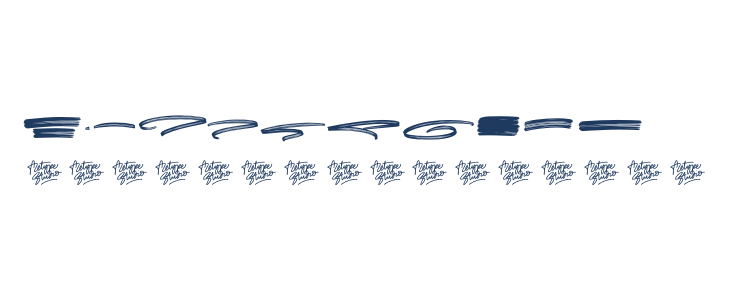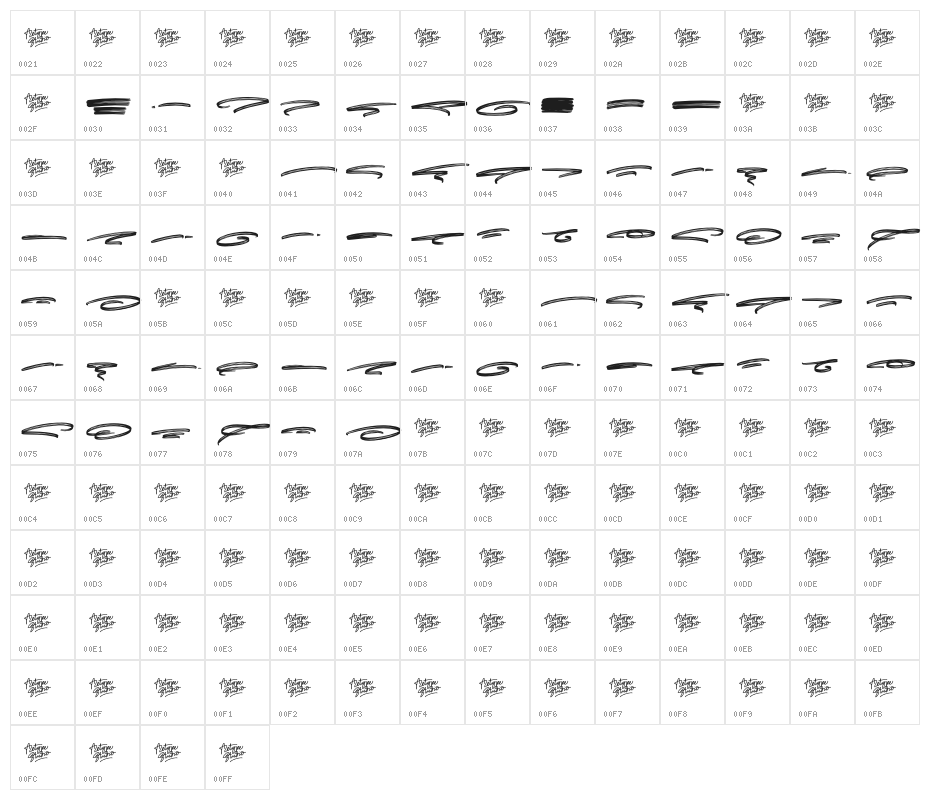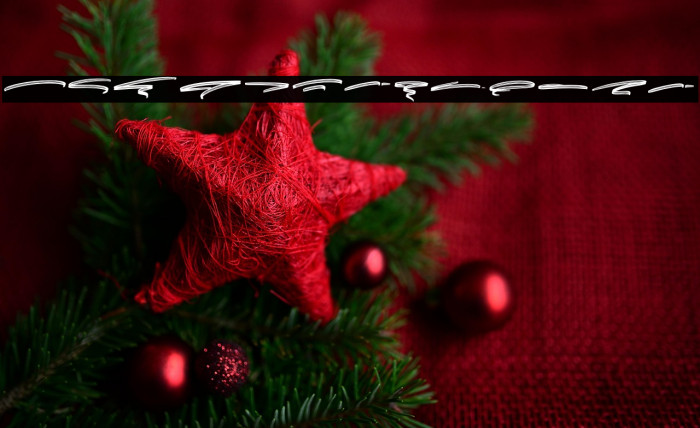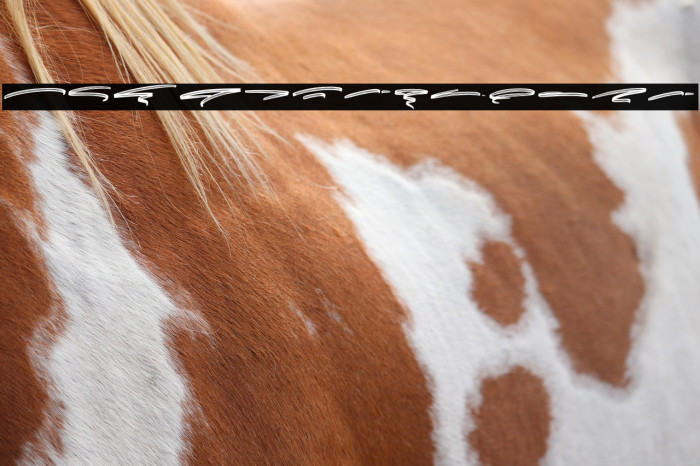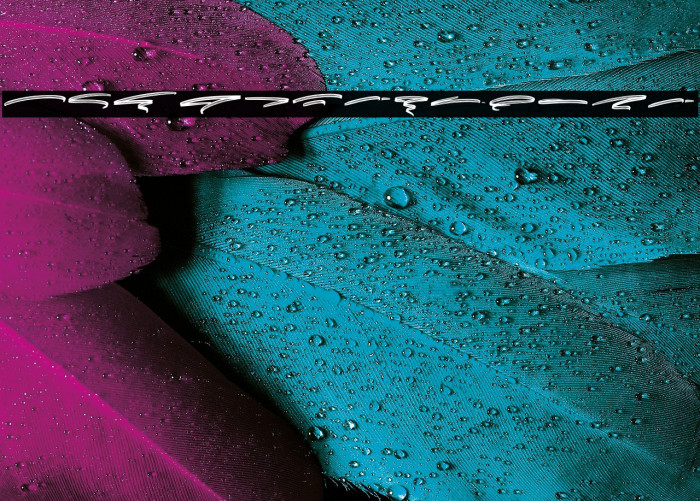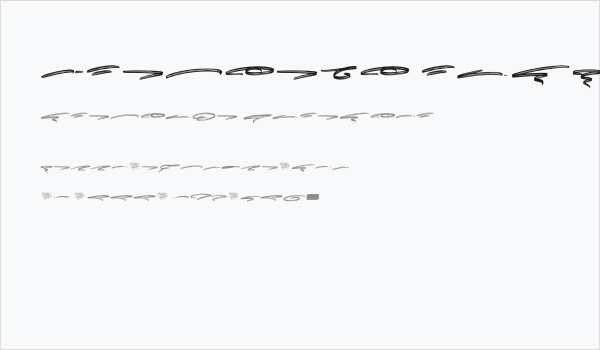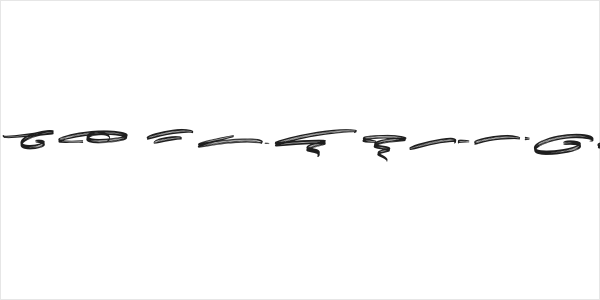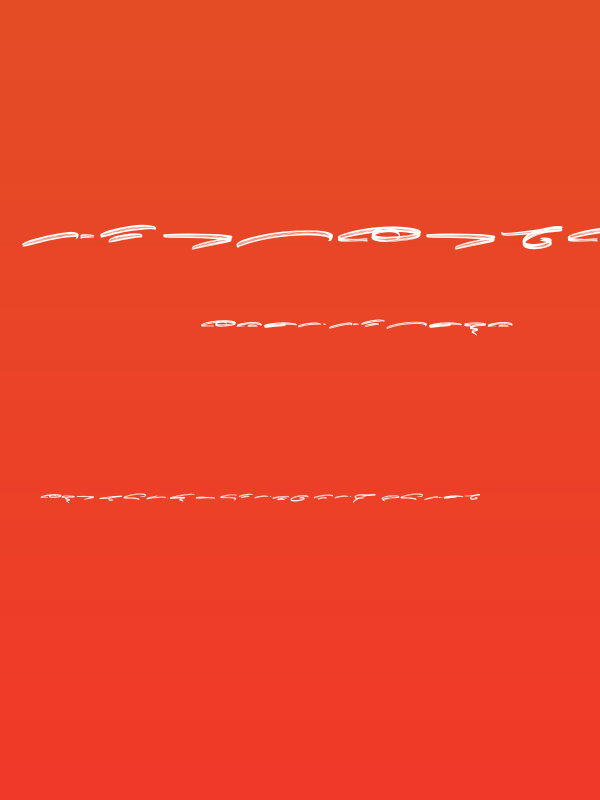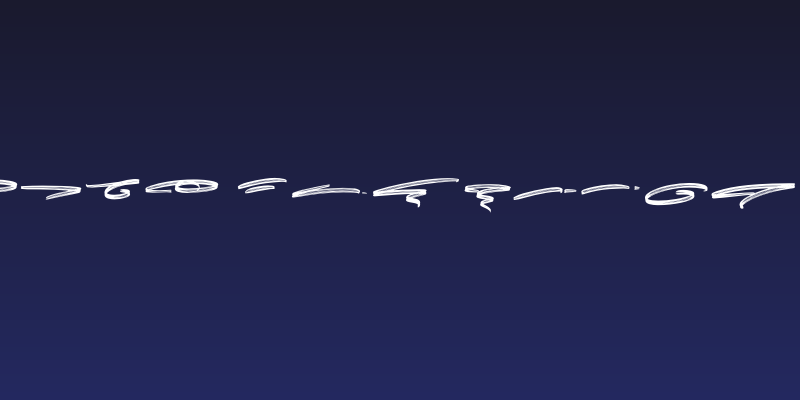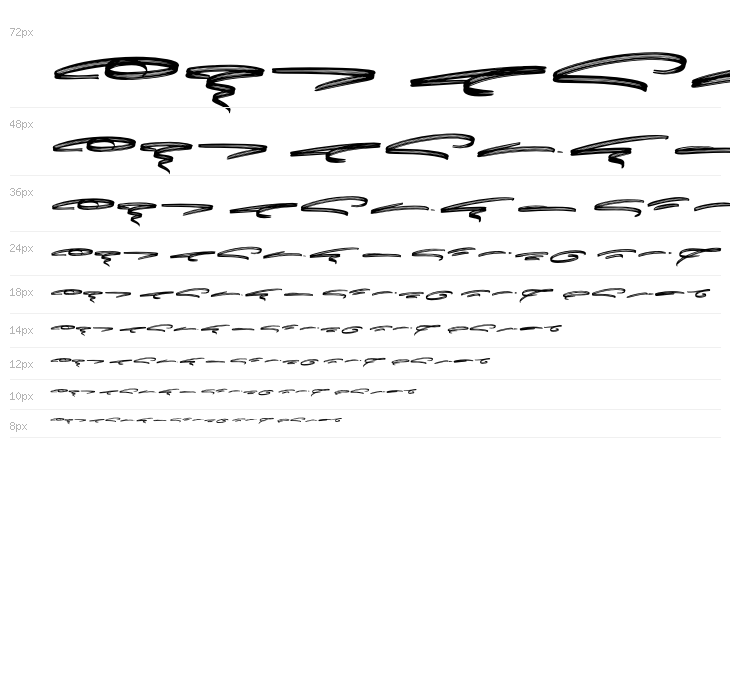
Greatest Richmond Swash Font
This font features an elegant and flowing script style, characterized by its sweeping curves and intricate swashes. The letters are interconnected, creating a sense of fluidity and movement. The strokes vary in thickness, adding a dynamic and artistic flair. This font exudes a sense of sophistication and creativity, making it ideal for projects that require a personal and artistic touch. The overall appearance is both decorative and refined, suitable for a variety of design applications.
| Proposed Projects | Ideal for wedding invitations, branding, logos, and artistic projects that require a personal touch. |